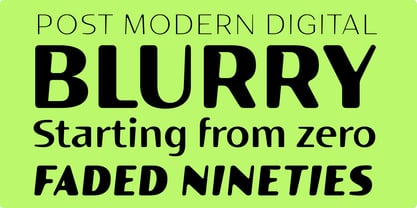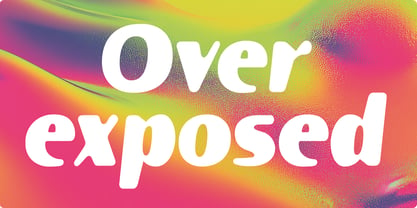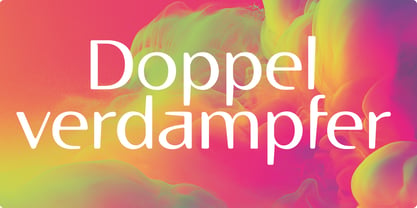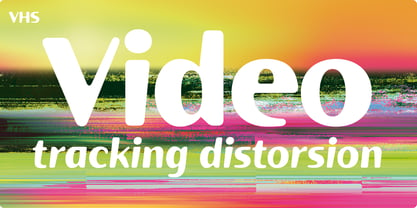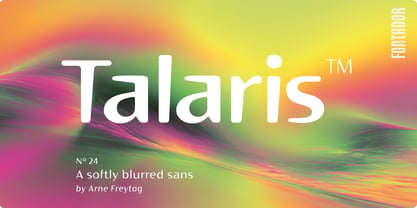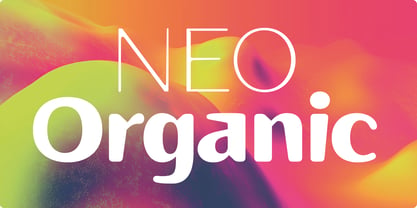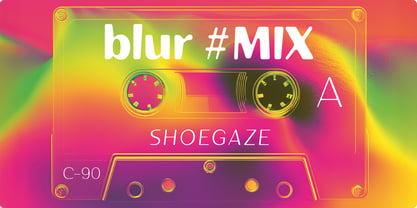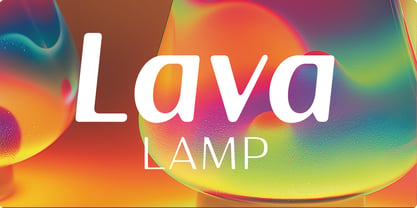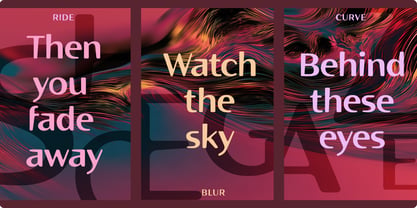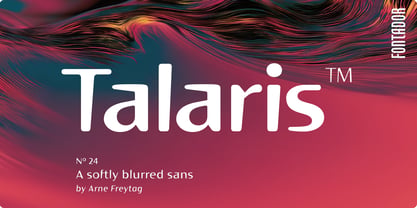
Talaris
by Fontador
The Talaris Font Family was designed by Arne Freytag and published by Fontador. Talaris contains 12 styles and family package options. More about this family
Talaris presents itself as a softly blurred, subtly overlaid grotesque with flowing transitions and deliberately softened contours. Formally, the typeface recalls the experimental digital culture of the 1990s and stands in clear proximity to Emigre and Fuse fonts, where imperfection was embraced as a deliberate design attitude. In contrast to its historical predecessors, Talaris appears more controlled and systematic, guided by a clear typographic logic. With 12 styles and support for 144 languages, the typeface offers a high degree of flexibility for a wide range of typographic applications. Talaris bridges the spirit of the digital avant-garde of the 1990s with contemporary usability in editorial, branding, and conceptual design.
Designers: Arne Freytag
Foundry: Fontador